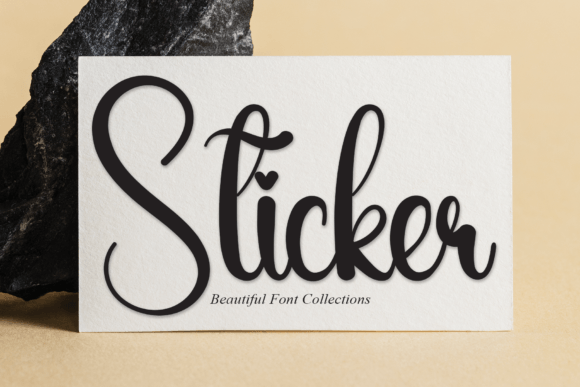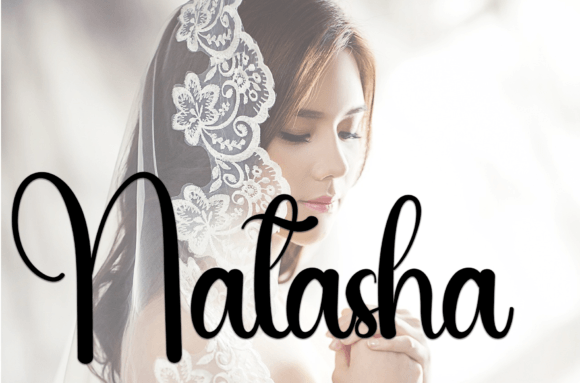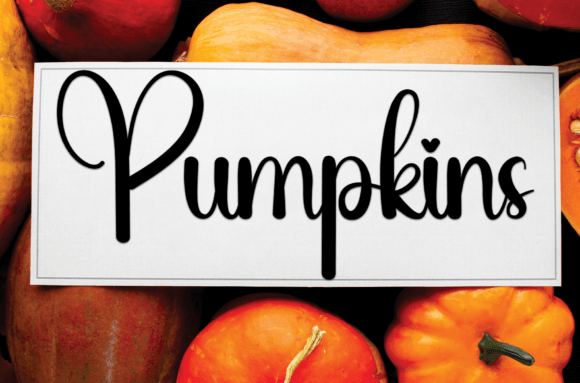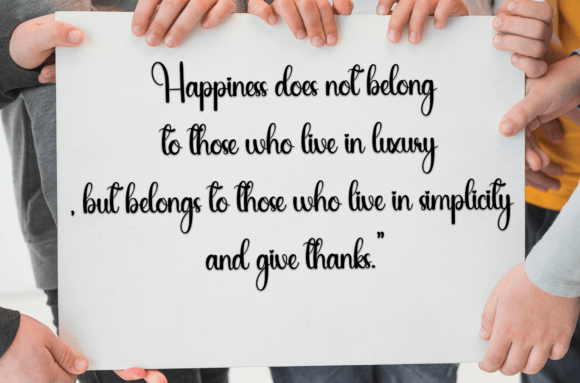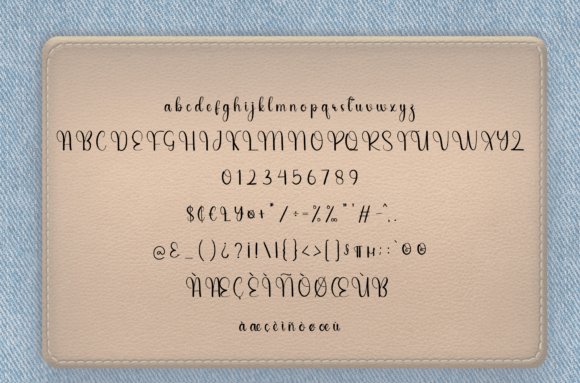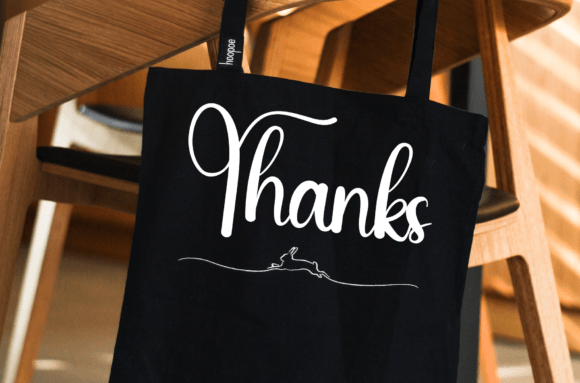
Sticker Font
About Sticker Font
Sticker is a sweet and friendly handwritten font that radiates warmth and playfulness. With its relaxed curves and organic flow, this font brings a soft, welcoming touch to all your creative designs. Whether you’re designing a heartfelt wedding invitation or a casual social media post, Sticker adapts beautifully to your needs with ease and charm.
This font is designed to mimic natural handwriting while maintaining clear legibility. The result is a font that feels personal and expressive but still looks professional across various media. Sticker offers a genuine, homemade vibe—perfect for projects that aim to connect emotionally with the audience.
A Font Full of Joy and Personality
Sticker has an effortlessly fun look that works wonderfully in both casual and elegant settings. Its light-hearted style makes it ideal for projects that need a soft, handwritten touch—without appearing overly formal or stylized. The curves are smooth and rounded, giving it a balanced feel that pleases the eye and keeps readers engaged.
The true beauty of Sticker lies in its versatility. You can use it to convey love, fun, gratitude, or celebration. It’s well-suited for both personal projects and commercial branding, especially for businesses that want to communicate friendliness and creativity.
Ideal For:
• Wedding invitations and event stationery
• Personalized quotes and posters
• Social media graphics (Instagram, Pinterest, Facebook)
• Craft projects and scrapbooks
• Product packaging and labels
• Logos for handmade or boutique brands
• Blog headers and lifestyle content
Key Features of Sticker Font
• Uppercase and lowercase letters
• Numbers and punctuation
• Smooth, easy-to-read strokes
• Multilingual character support
Sticker gives you everything you need to create warm, welcoming designs. Whether you’re printing on paper or creating content for the web, the font maintains its character and clarity.
Why You’ll Love Using Sticker
Designers and crafters alike will find that Sticker quickly becomes a favorite. It’s the type of font that adds charm without trying too hard. Whether used in bold headlines or subtle accents, it brings a soft yet cheerful energy to every project.
What truly makes Sticker special is its adaptability. It works just as beautifully on a romantic wedding invite as it does on a child’s birthday banner. It bridges the gap between elegance and friendliness—making it a valuable asset in any designer’s toolkit.
So go ahead—express joy, love, and warmth in your designs with Sticker. It’s the handwritten font that makes everything feel just a bit more personal.